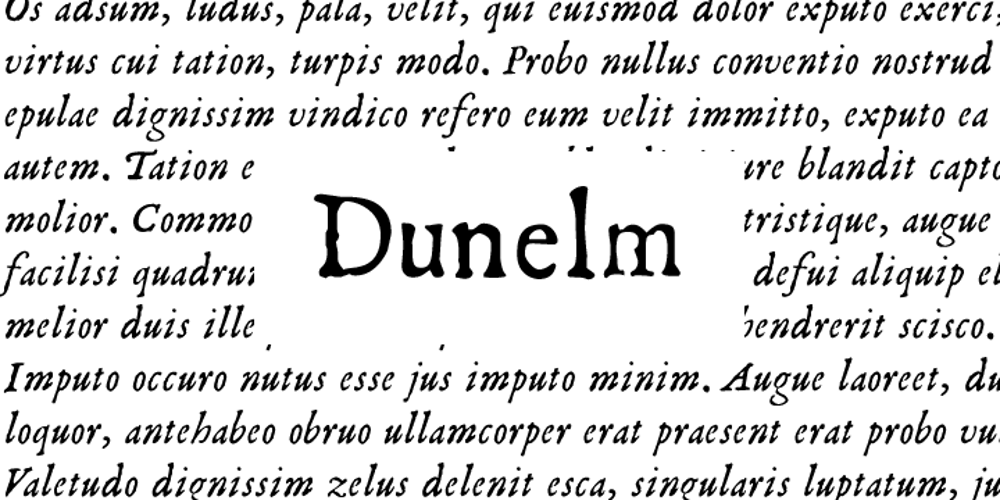
Dunelm Font Family was designed by Matthew Aaron Desmond and published by MADType. Dunelm contains 2 styles and family package options. Dunelm is a typeface that was inspired by the type used in an English book from 1636. The typeface used in the book was unique and the goal in creating this font was to emulate the printing feel of the 17th century. The authentic ink-blotted and imperfect feel of the letter-pressed type was preserved with care. For best effect, this font should be used at text and smaller title sizes.